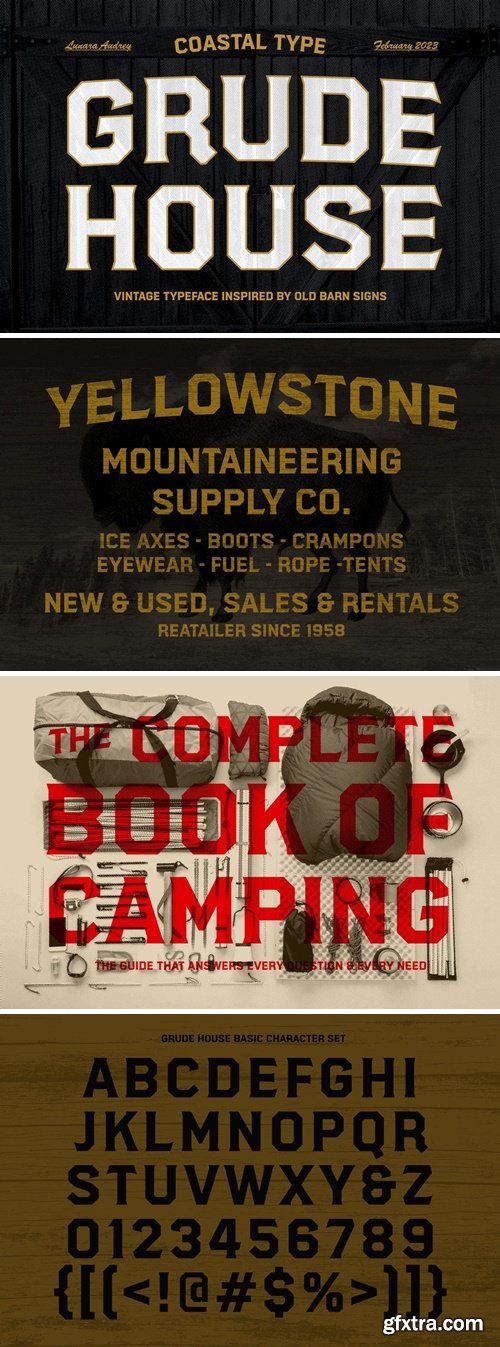
Grude House Font
Grude House is a typeface primarily inspired by the titling capitals found in the old barn signs. It has an authentic vintage feeling and works wonder for packaging, lettering, invitations, cover and other types of display design projects.